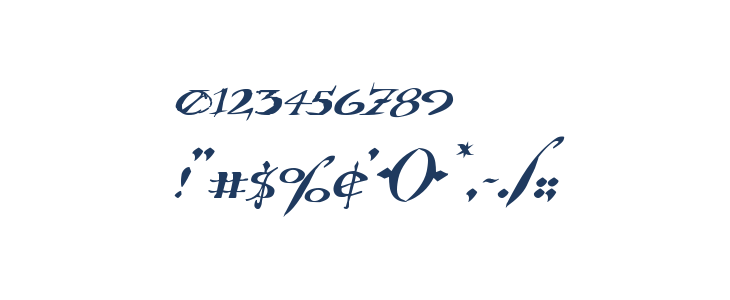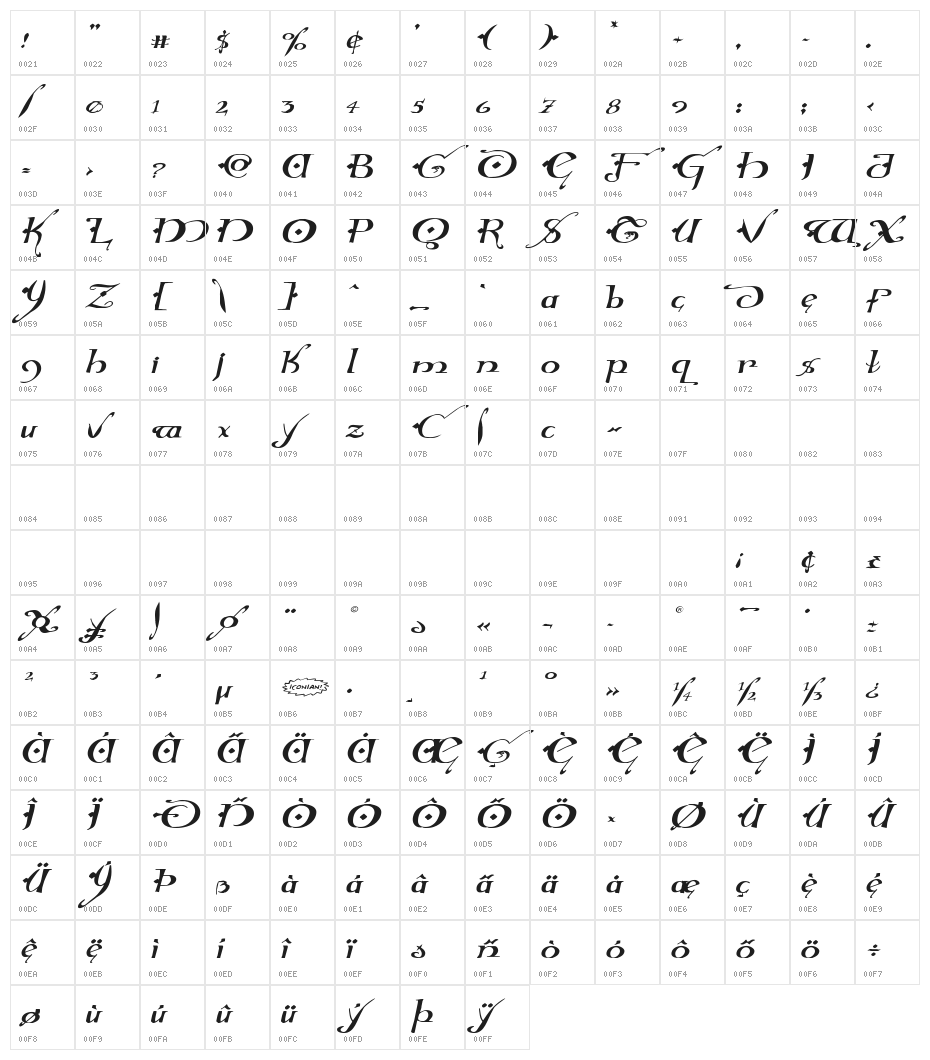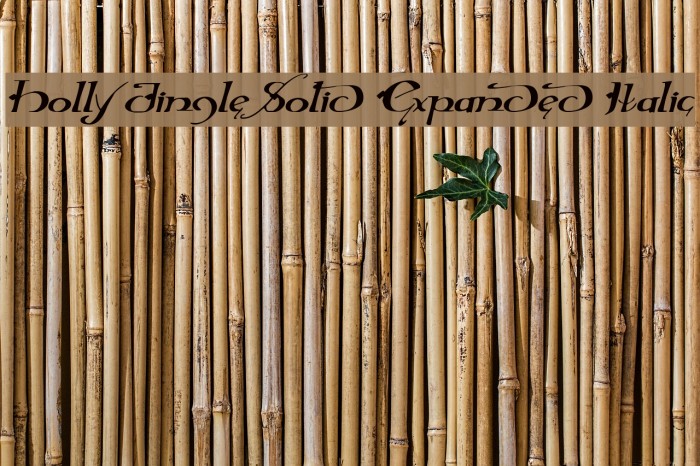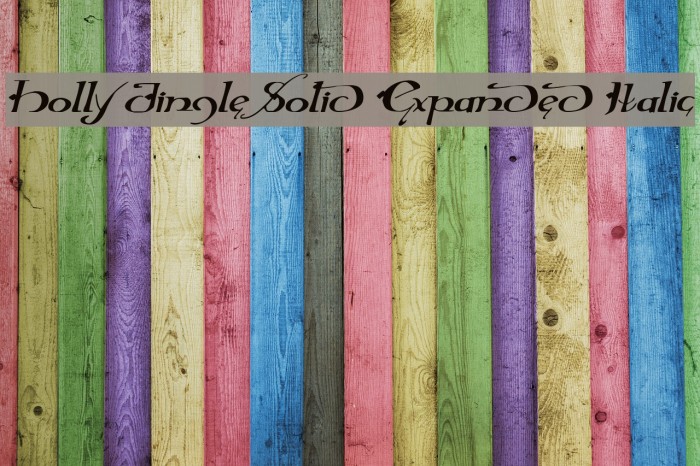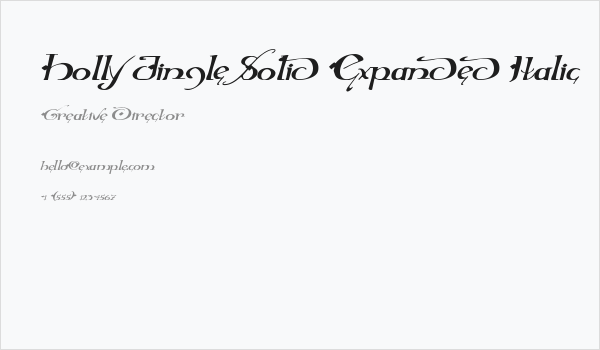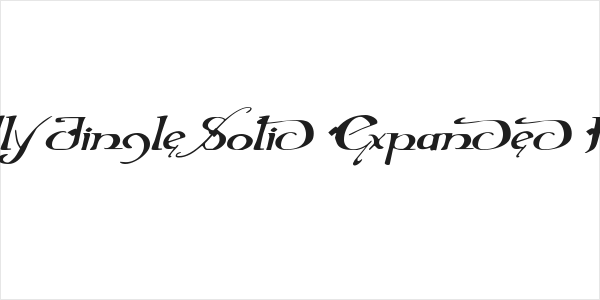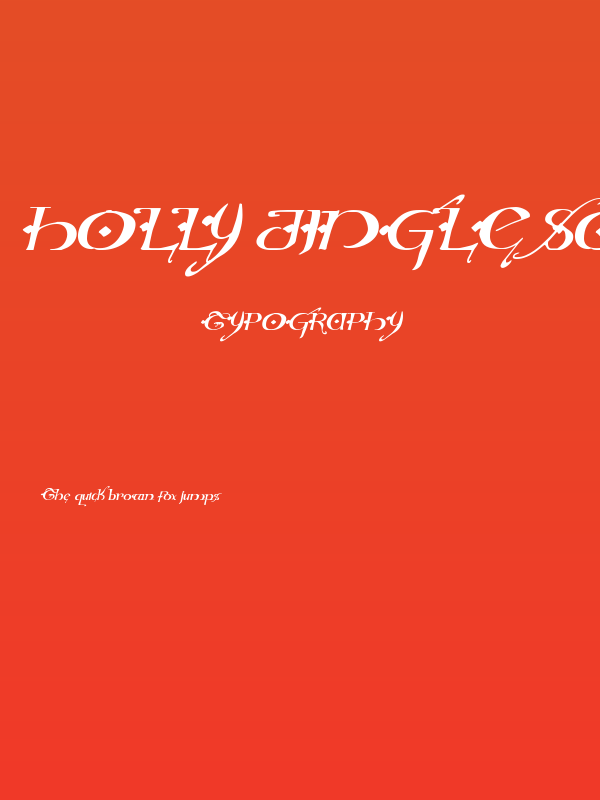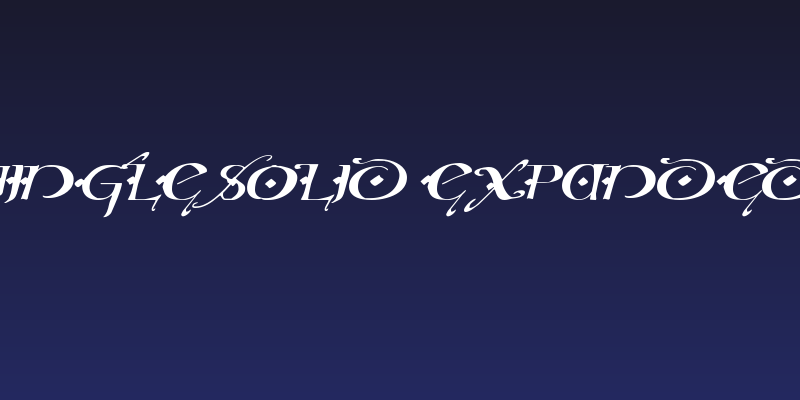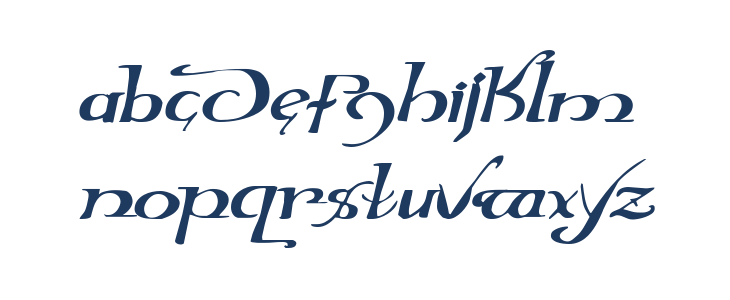
Holly Jingle Solid Expanded Italic Font
Holly Jingle Solid Expanded Italic Description
This font features an elaborate and decorative style with a strong emphasis on curves and flourishes. Each character is uniquely crafted with intricate details, giving it a festive and whimsical appearance. The letters are bold and italicized, adding a dynamic and flowing quality to the text. The expanded width of the characters enhances readability while maintaining an artistic flair. The numbers and special characters are designed to match the ornate style of the alphabet, ensuring consistency throughout. This font is ideal for creating eye-catching and memorable designs.
| Proposed Projects | Perfect for holiday-themed designs, invitations, greeting cards, and festive branding. |